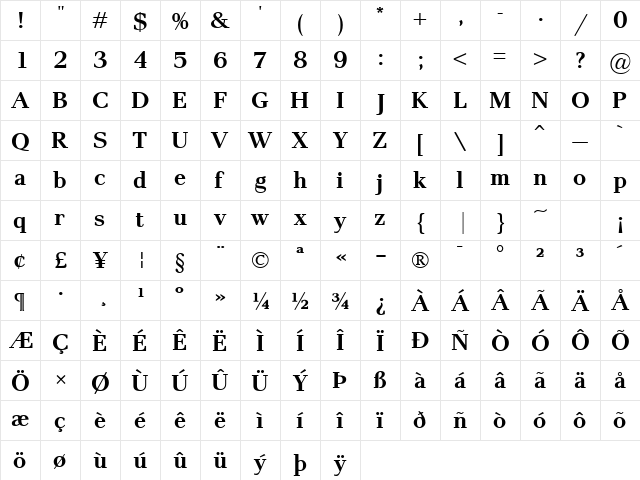
Pax Bold Font Preview
Pax Bold
Pax Bold Font Details
Design Context for Pax Typeface
Pax offers clean, dependable letterforms without strong stylistic allegiance, making it a practical choice for designers who need flexibility. Its bold stroke weight gives it real presence on the page.